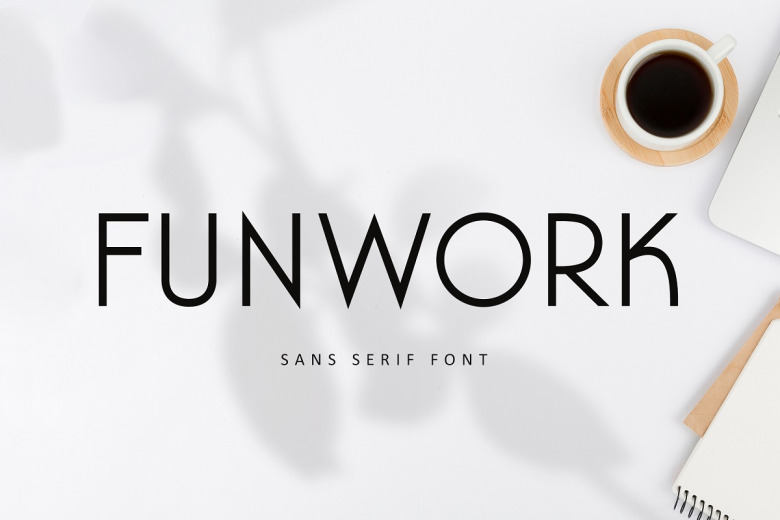
Funwork Font
If you were looking to class the joint up a bit, here is Funwork in an elegant Sans Serif font One of the more basic looks that meet a range of creative, crafty ideas — from letterheads and titles to stationery. Its clean & geometric look at and optimum legibility make it perfect for branding, brochures, greeting cards, quotes, posters, stationary, design title, blog header much more.
Funwork Sans Serif Font